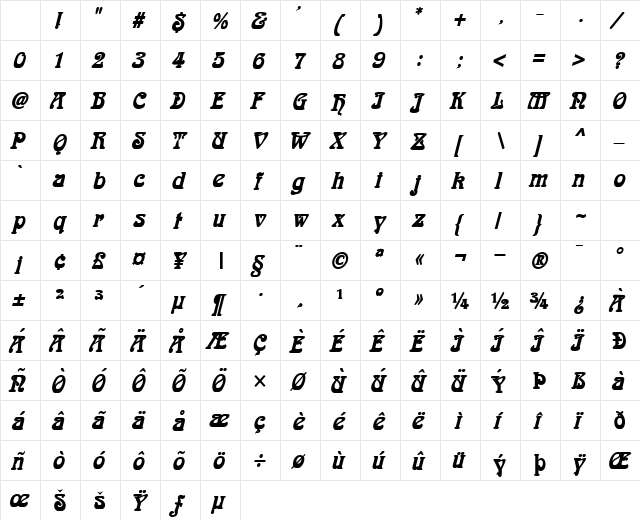
Aidan Thin is a composed and adaptable typeface that performs quietly and consistently across a wide range of design contexts. The slanted form adds forward momentum and visual energy. Its bold stroke weight gives it real presence on the page.